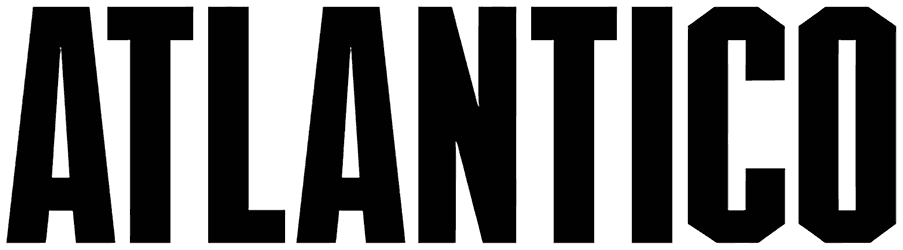
Atlantico Font
For redefining your modern media production in a friendly and futuristic visual identity to take it to a high level, or promoting your title designs for flyers, movies, and ads, never bypass this football font with geome…
For redefining your modern media production in a friendly and futuristic visual identity to take it to a high level, or promoting your title designs for flyers, movies, and ads, never bypass this football font with geometric elements suspended in both trendy and retro nature from RB.
Keep your designs nifty, in fashion, and yet impressive by using Atlantico. No doubt, the lack of lowercase letters and punctuations would not even be an issue, so try out and push fascinating outcomes.